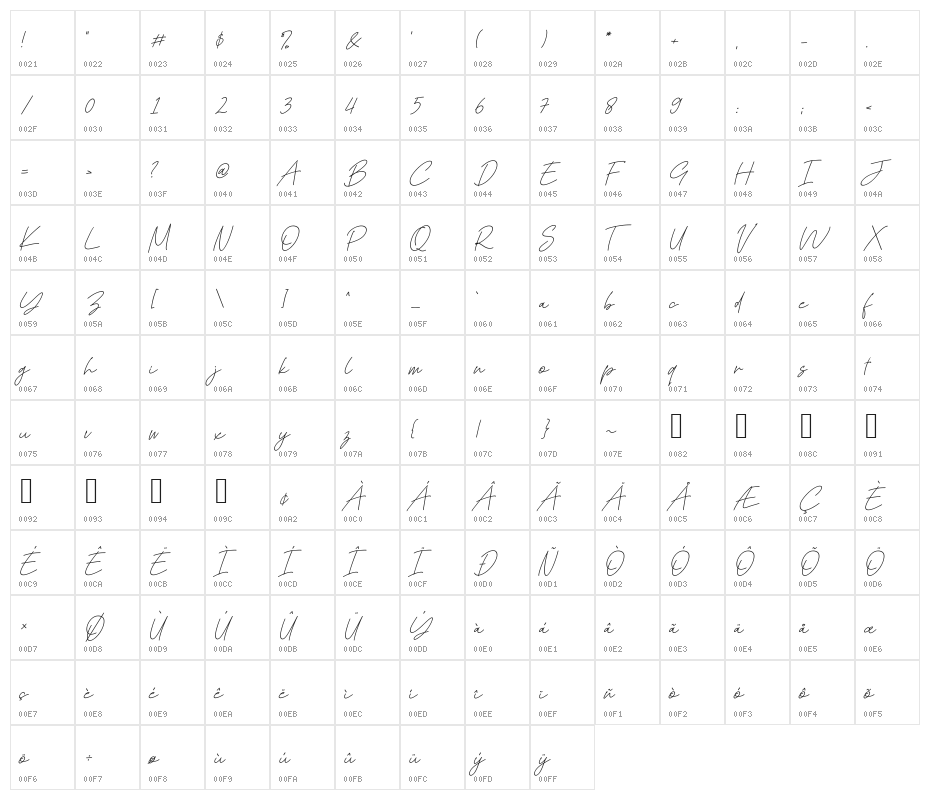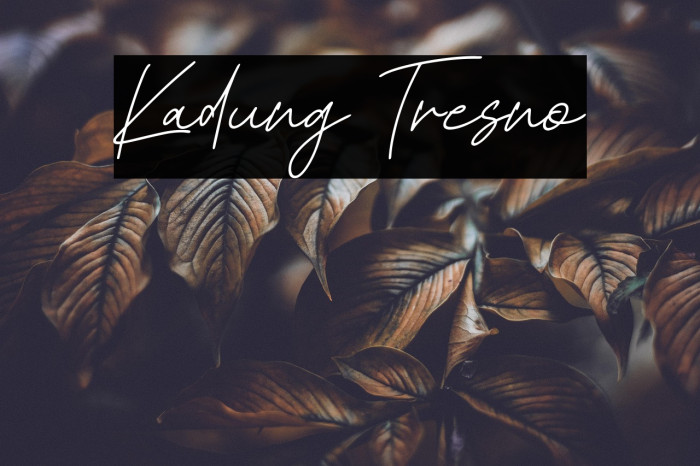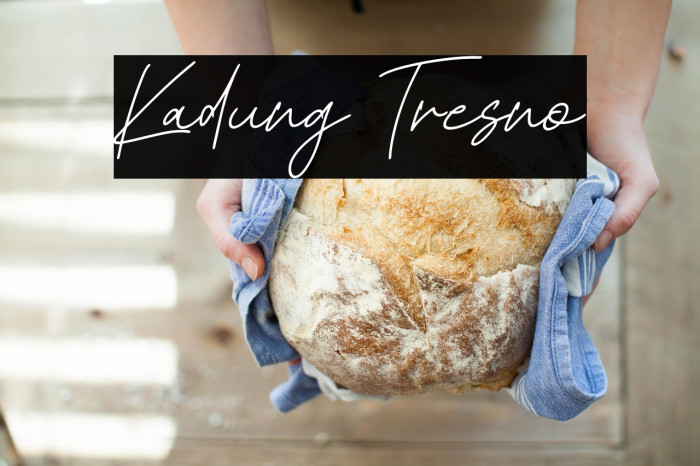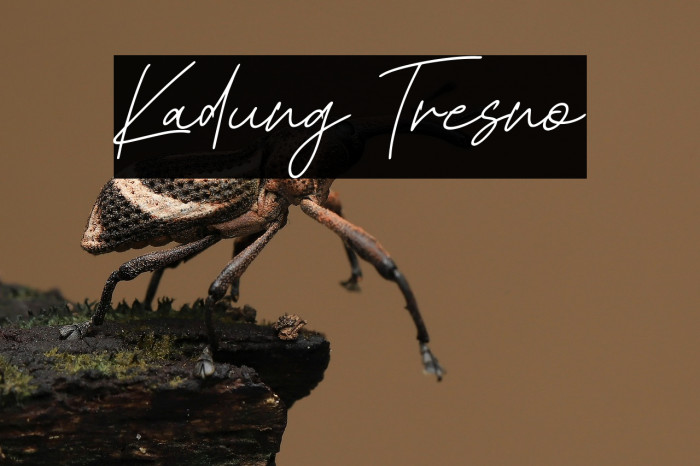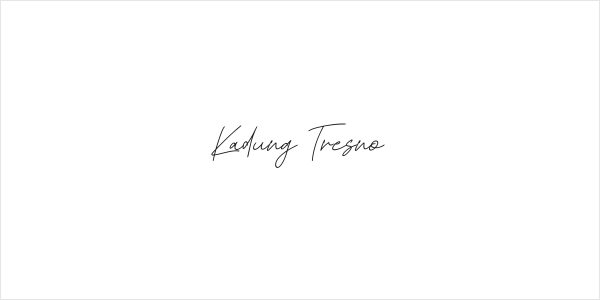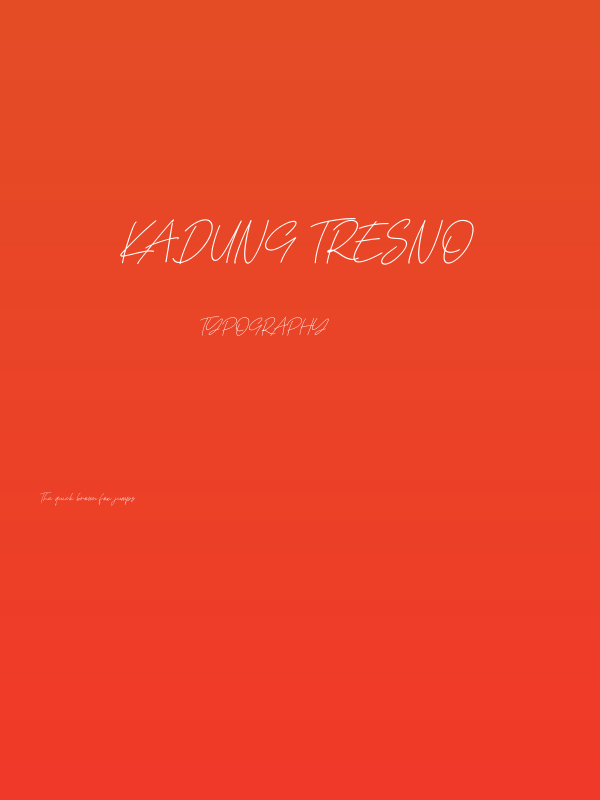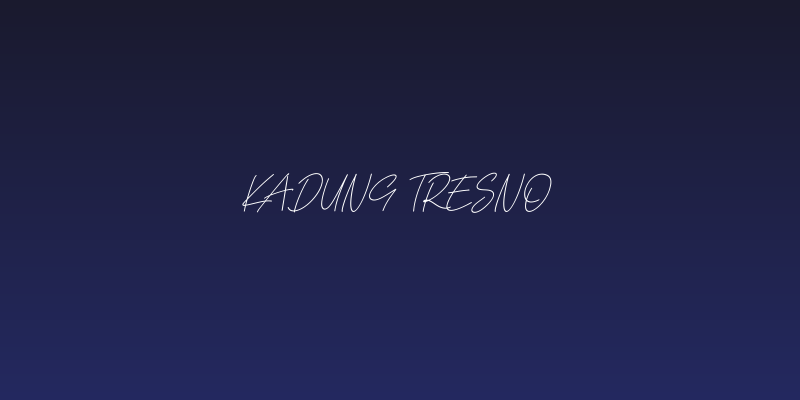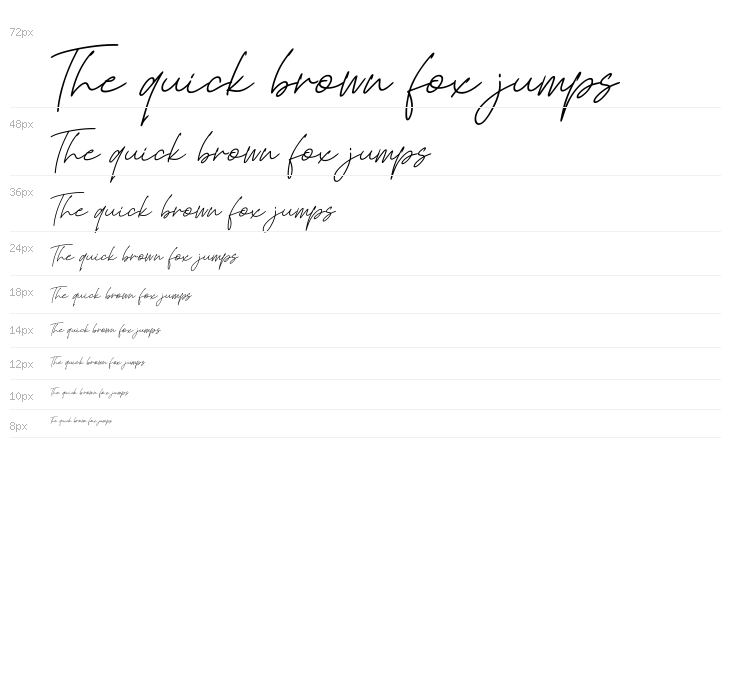
Kadung Tresno Font
Kadung Tresno Description
This font features an elegant and flowing script style, characterized by its smooth, continuous strokes that mimic natural handwriting. The uppercase letters are tall and slightly slanted, giving a sense of sophistication and grace. The lowercase letters maintain a consistent flow, enhancing readability while preserving the handwritten aesthetic. Numbers and special characters are designed to complement the overall script style, ensuring a cohesive look across all text elements. This font exudes a personal touch, making it ideal for projects that require a humanistic and approachable feel.
Overall StyleElegant, Handwritten
Use CaseLogos, Invitations, Personal Branding
Proposed ProjectsIdeal for wedding invitations, personal branding, greeting cards, and elegant stationery.